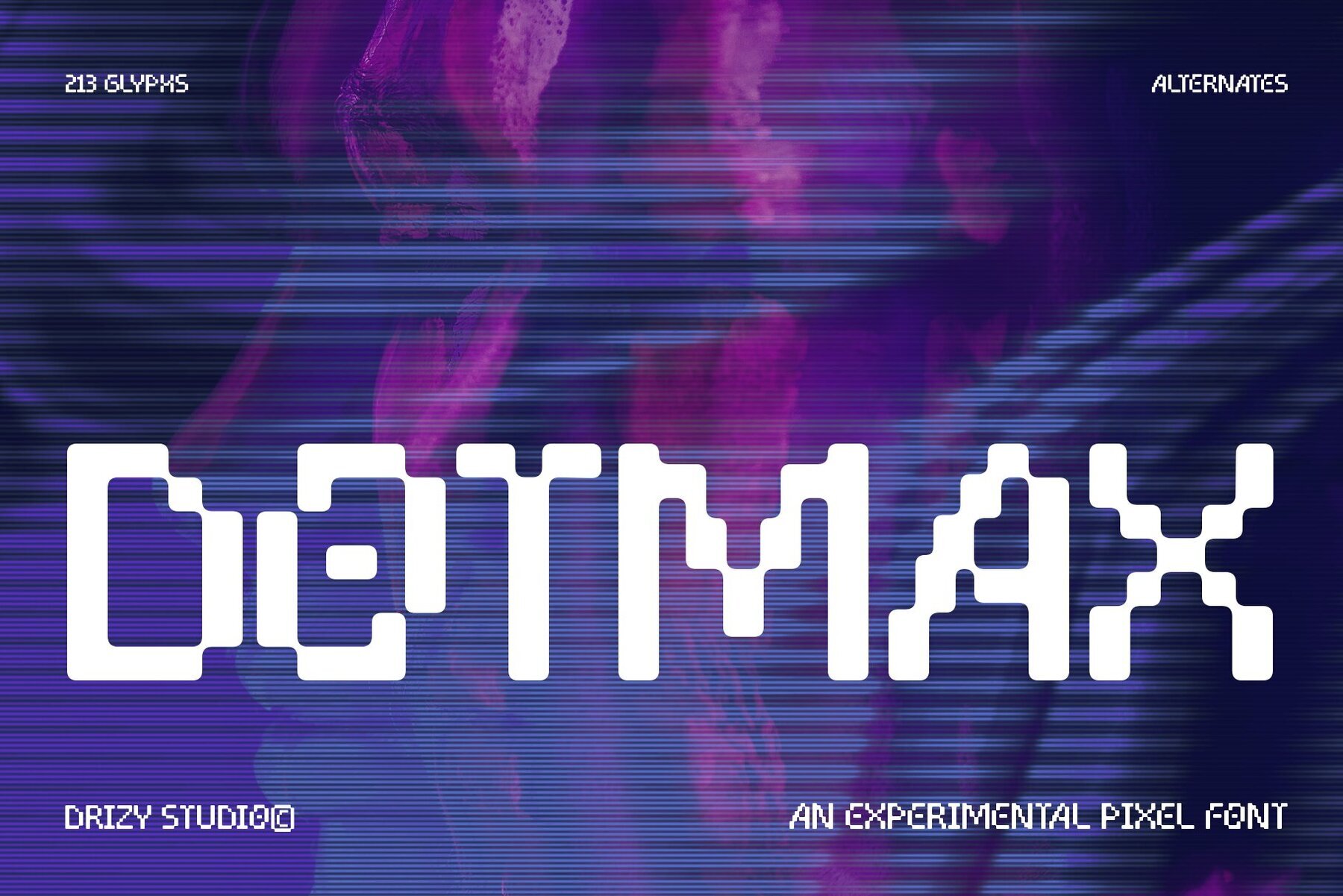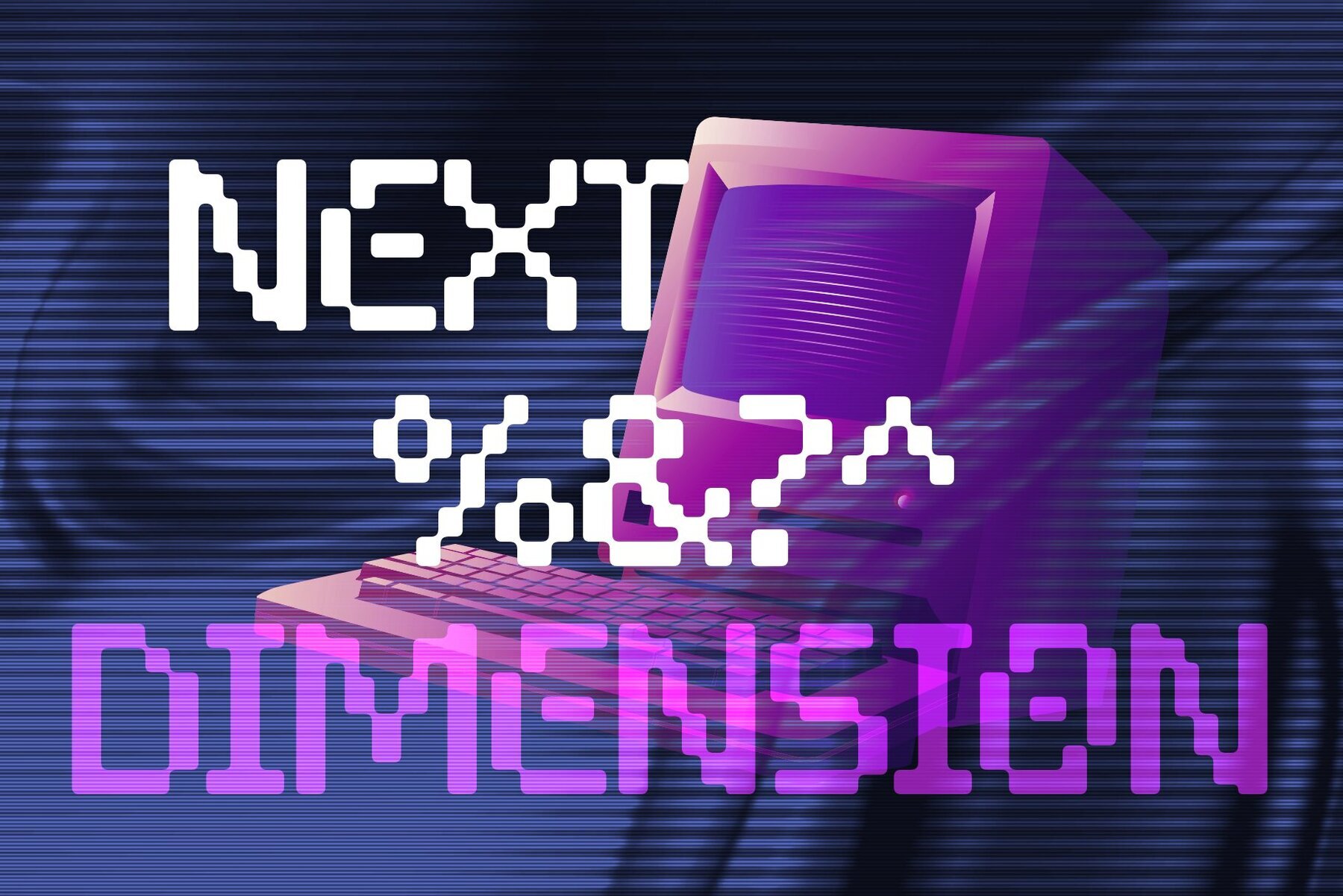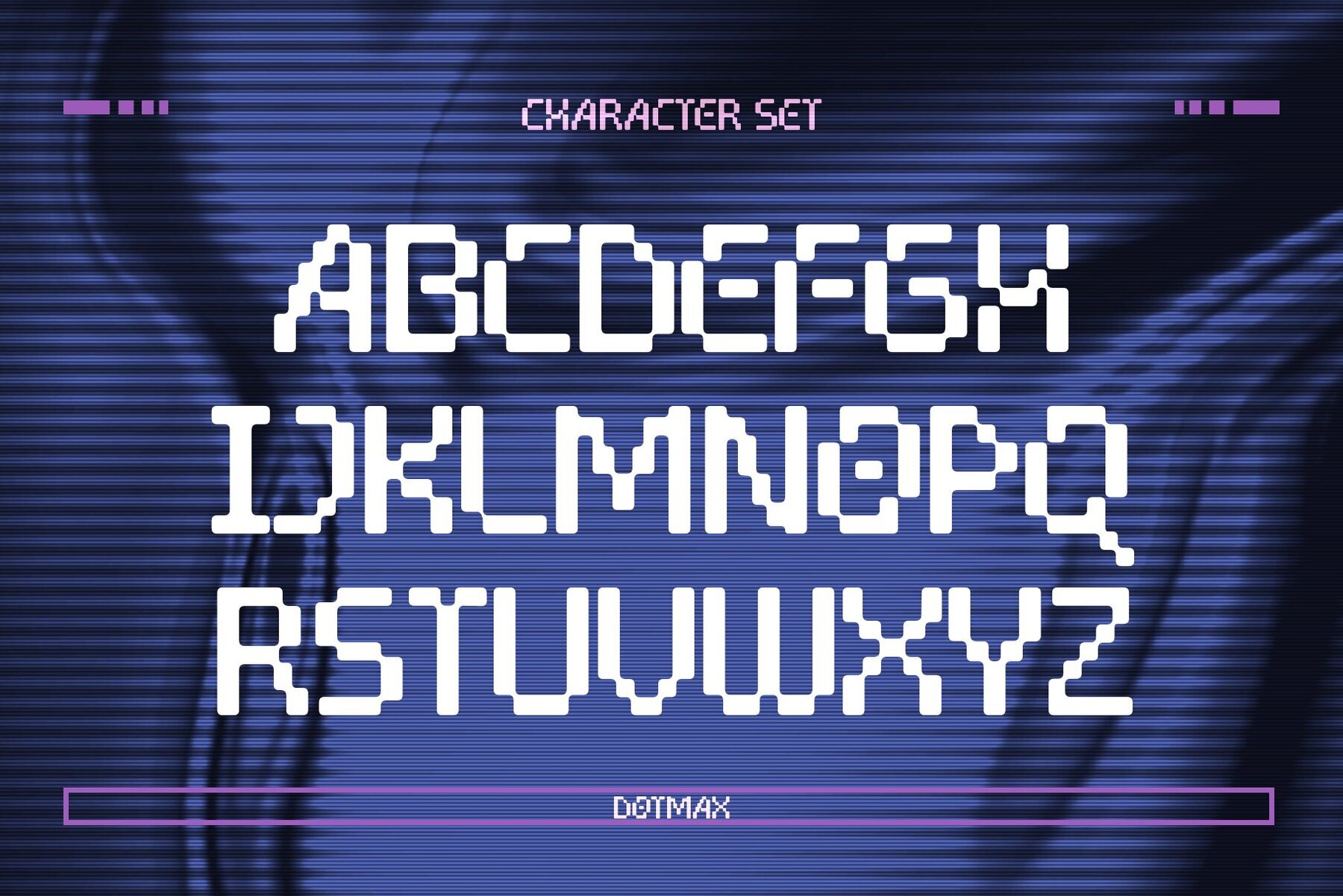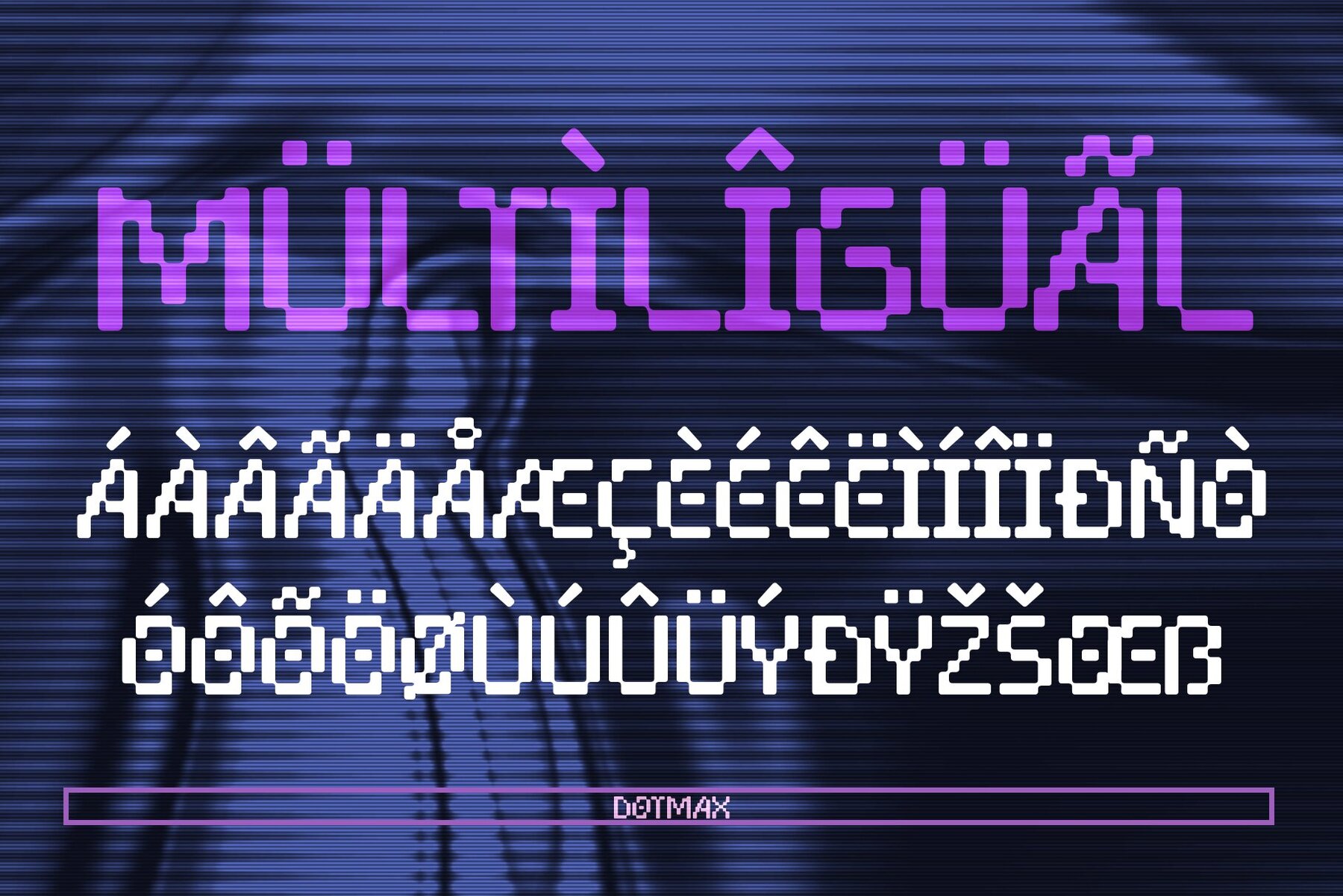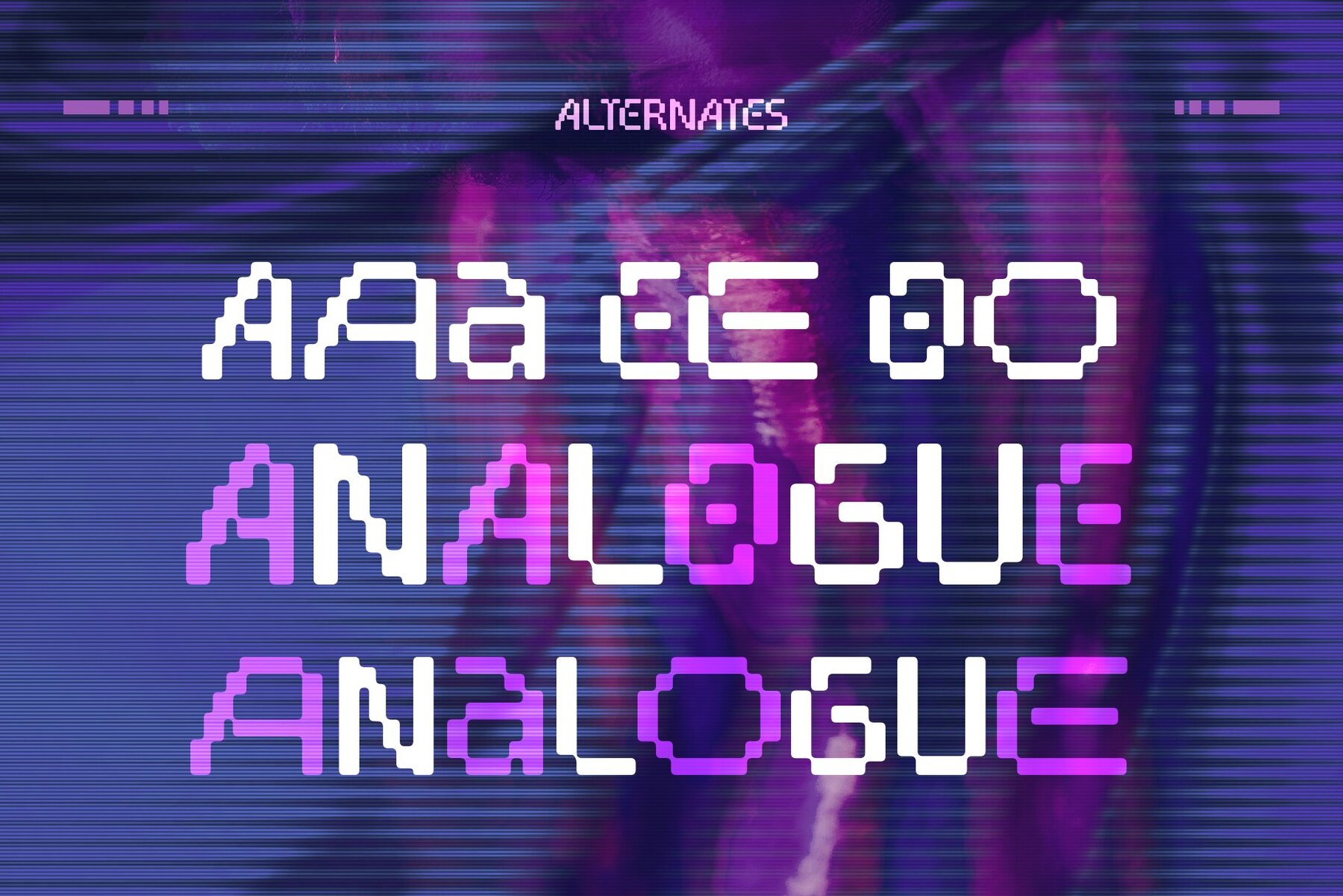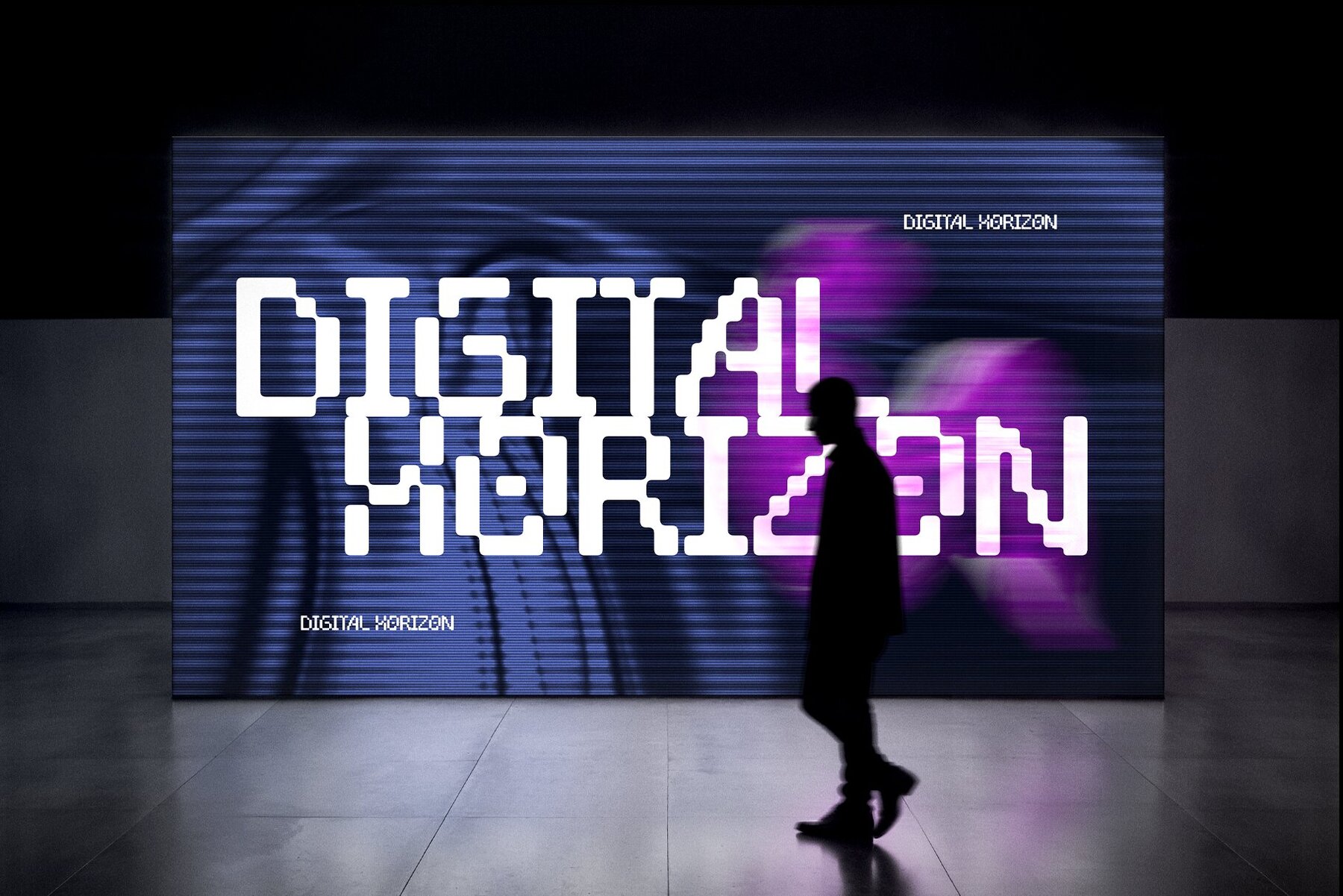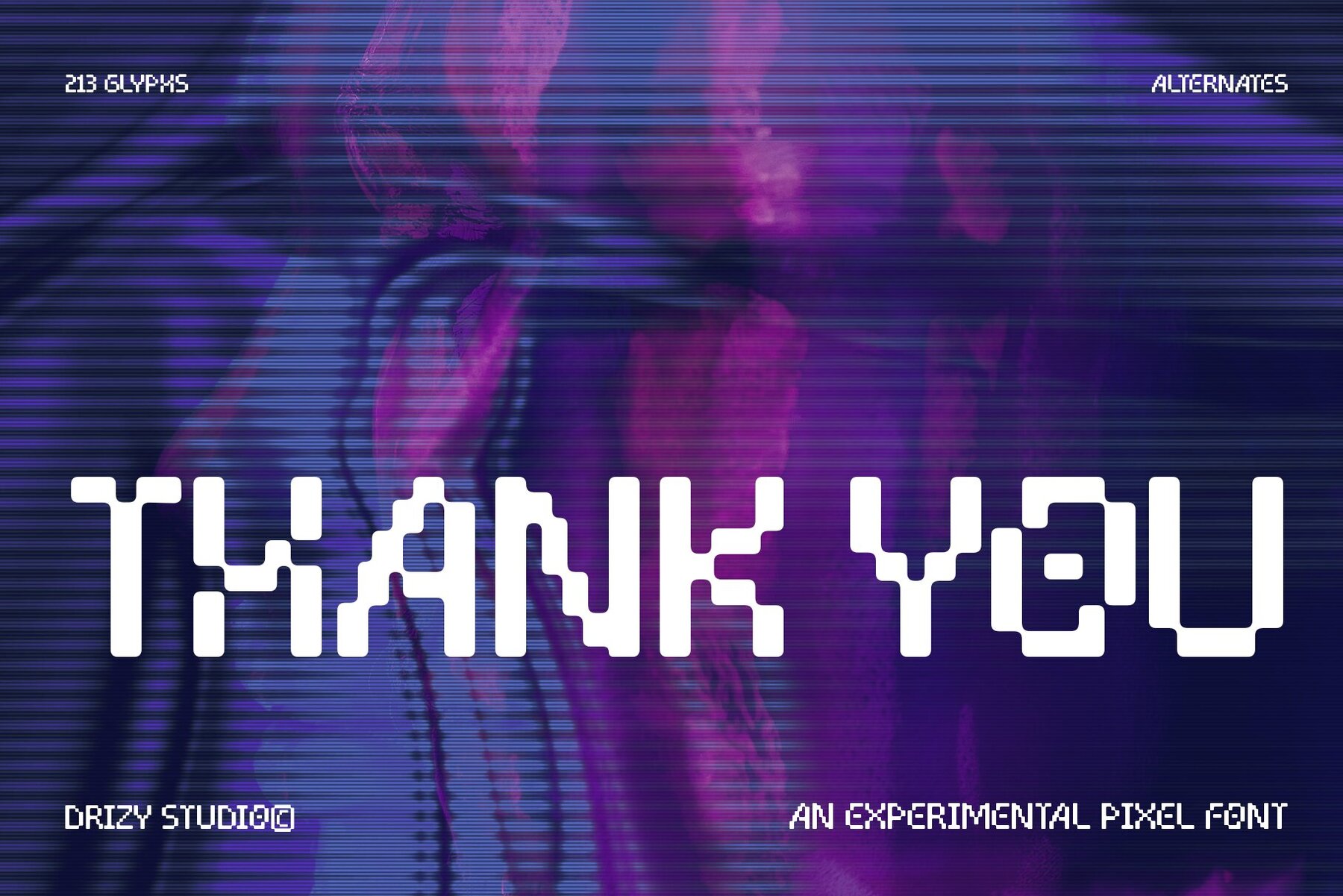
Dotmax Font
Dotmax: A Quirky Random Pixel Typeface
Dotmax is a modern typeface defined by its scattered pixel dot design, crafting a fun, digital-inspired aesthetic. Its distinctive arrangement delivers a playful, glitchy feel, ideal for retro games, tech posters, futuristic branding, and other creative digital projects.
Features of Dotmax
• Uppercase & Lowercase Letters
• Punctuation & Numbers
• Multilingual Support
• Includes Ligatures
• Alternates Available